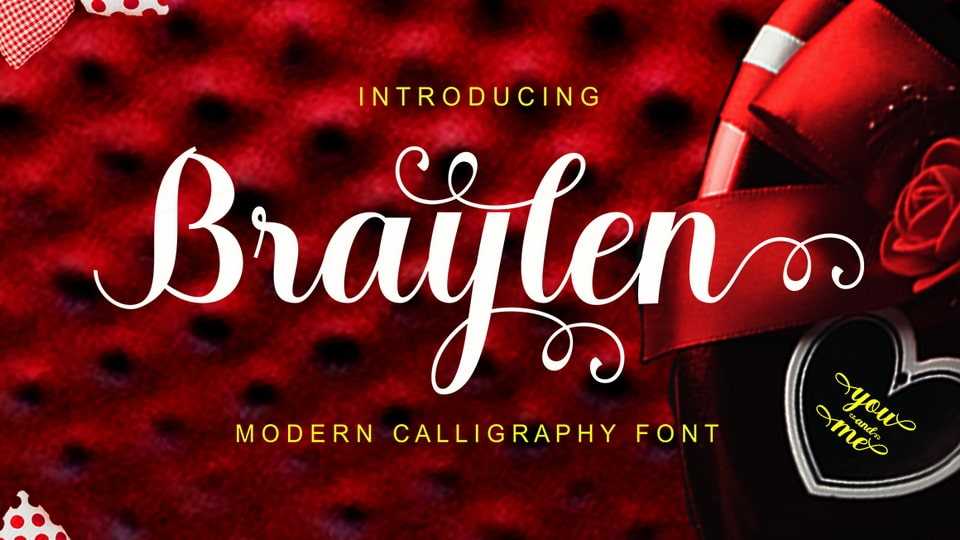
Download Braylen font, a modern script with handwriting, decorative characters, designed to perfectly combine informal, romantic, sassy, sweet scripts.